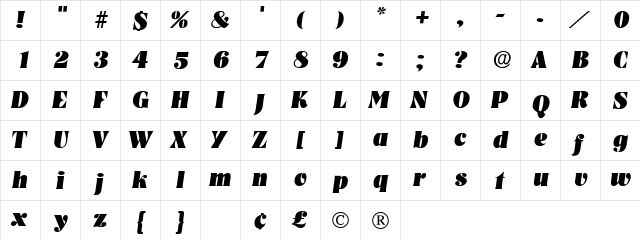
Glenys Display SSi Italic
Design Context for Glenys Display SSi Typeface
Glenys Display SSi is built around its visual character rather than neutral utility — its distinctive forms are designed to make an impression at display sizes. Its italic angle brings a sense of urgency and motion to the letterforms.
Font Pairing: Pair with a clean neutral sans-serif for body copy to let Glenys Display SSi's character lead without overwhelming the composition.
Pro Tip: Use Glenys Display SSi exclusively at display sizes — it was designed to be seen, not read at length. Let a neutral companion handle body copy.